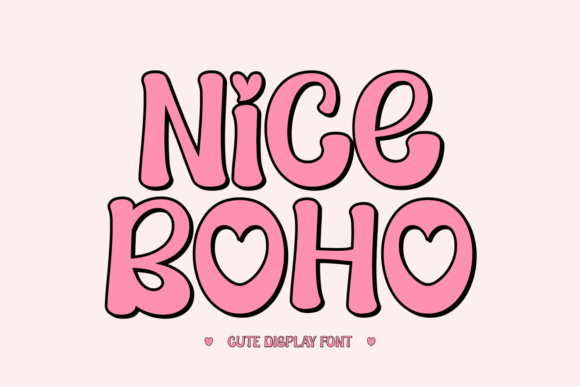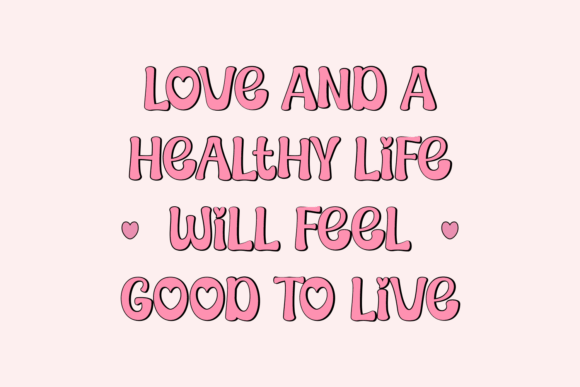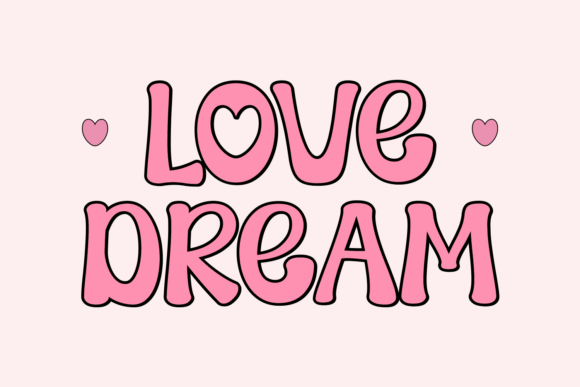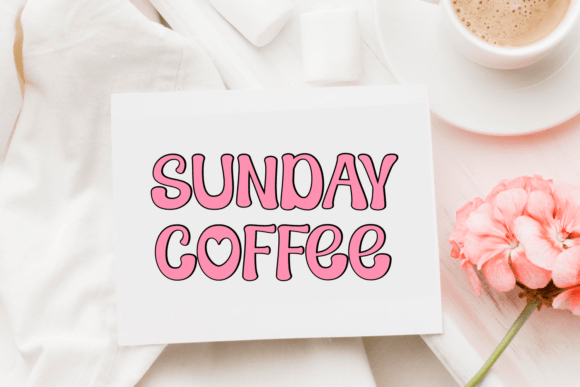
Nice Boho Font
About the Nice Boho Font
Step up your design game with Nice Boho Font, a font that exudes confidence and style. Immerse yourself in a rich typographic experience with the 7ntypes Display Font, a delightful fusion of yesteryear charm and modern allure. Unearth a dusting of nostalgia with our Retro and Vintage Fonts, bursting with timeless elegance. Express your creativity through our Craft and Sublimation Fonts, optimized for Cricut and Svg projects. Attract immediate attention with an impactful mix of Groovy, Chunky, Valentines, and S Fonts that were designed to stand out and impress.
Nice Boho Font Usage Examples
Nice Boho Font Example